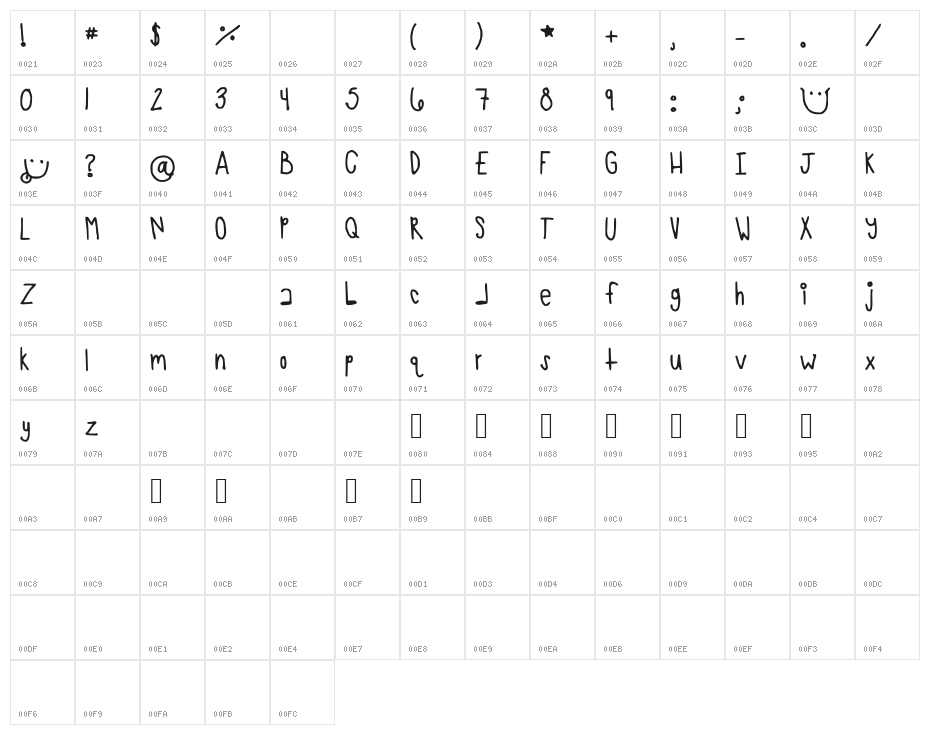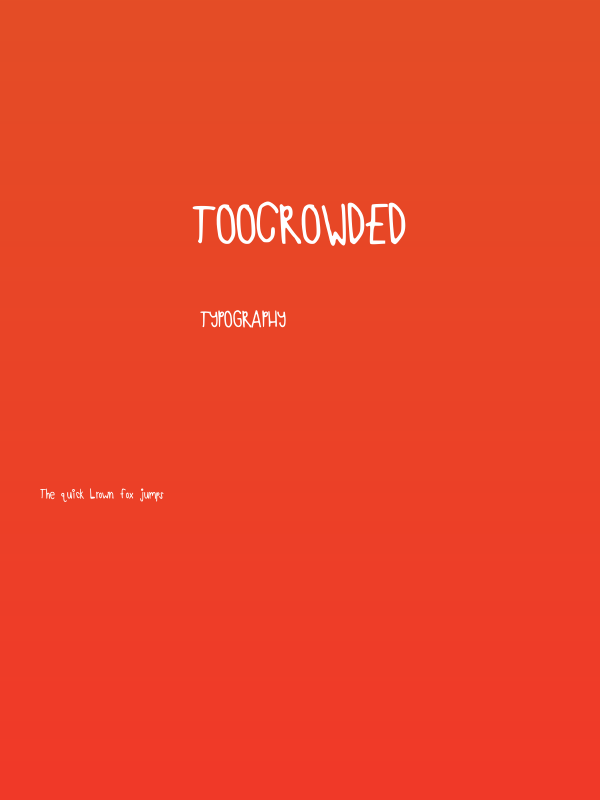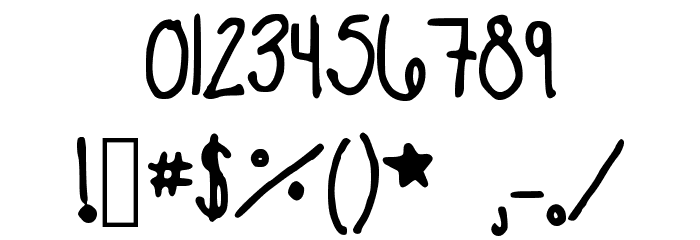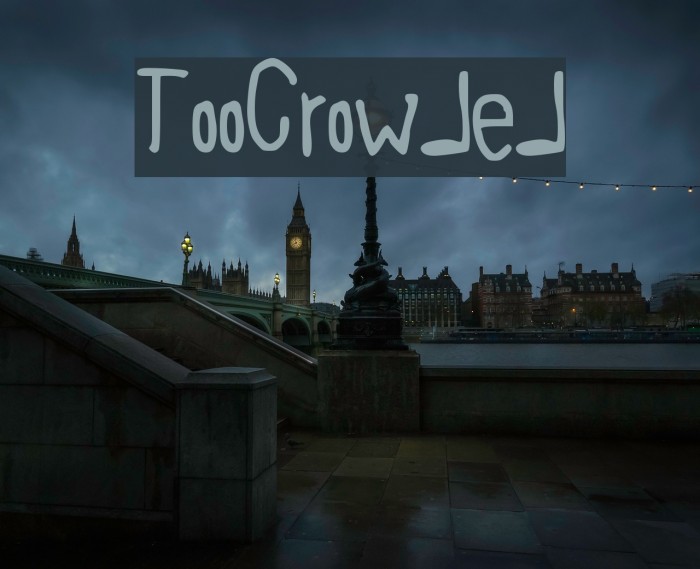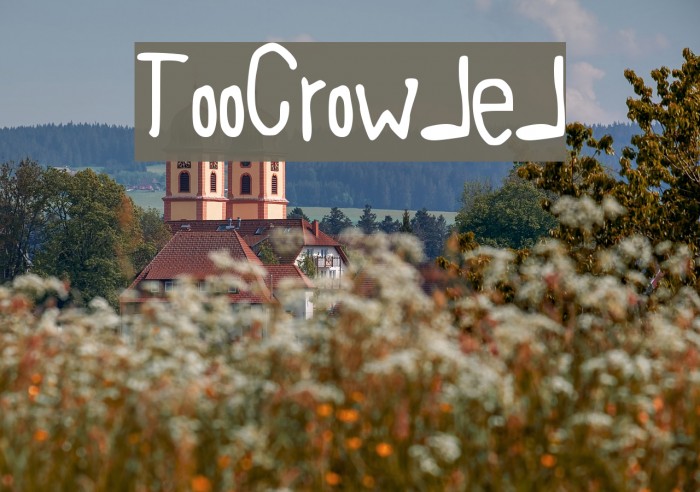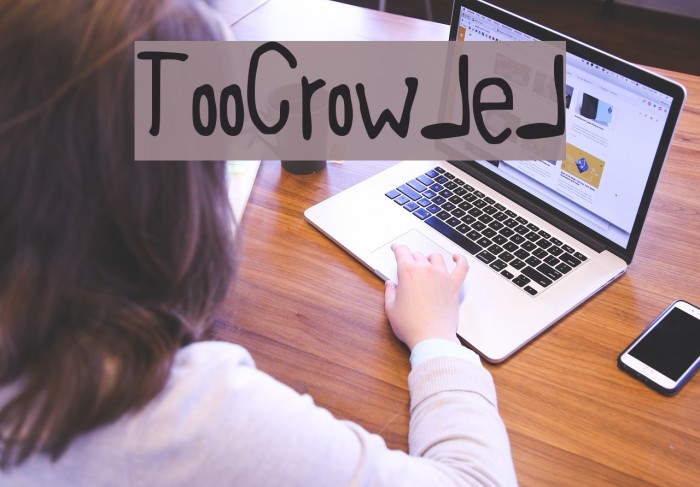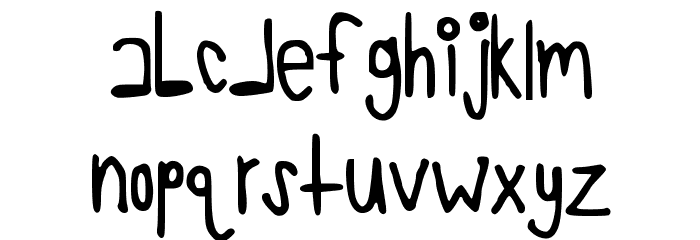
TooCrowded Font
TooCrowded Description
This playful and quirky font features a handwritten style with a casual, informal appearance. The characters are slightly irregular, giving it a unique and personal touch. The uppercase letters are bold and rounded, while the lowercase letters maintain a consistent flow with a slightly narrower form. Numbers and special characters follow the same playful aesthetic, making this font ideal for creative projects. The overall look is friendly and approachable, perfect for adding a personal touch to any design.
TOOCROWDED UPPERCASE
TOOCROWDED LOWERCASE
TOOCROWDED OTHER CHARS
| Use Case | Headlines, Logos, Informal text |
| Proposed Projects | Ideal for greeting cards, children's books, playful branding, and social media graphics. |